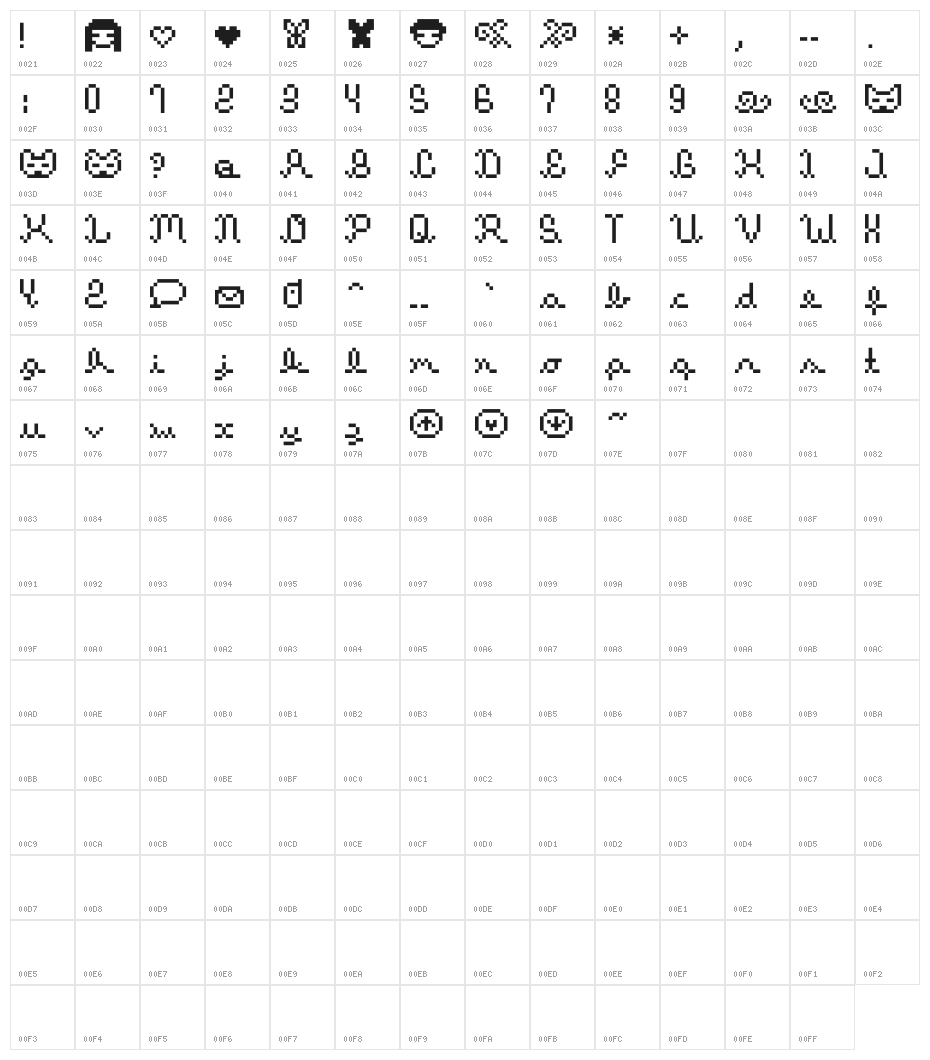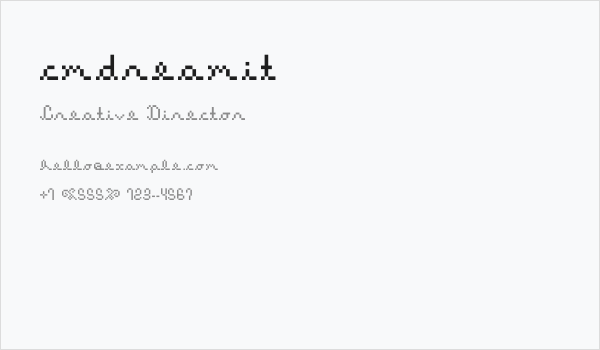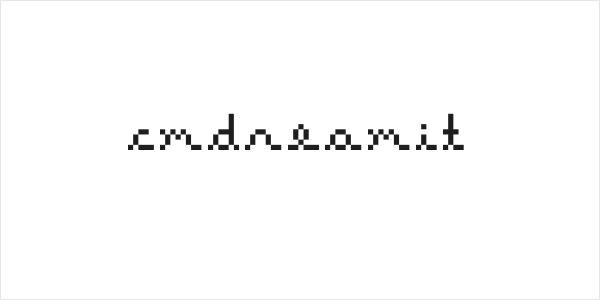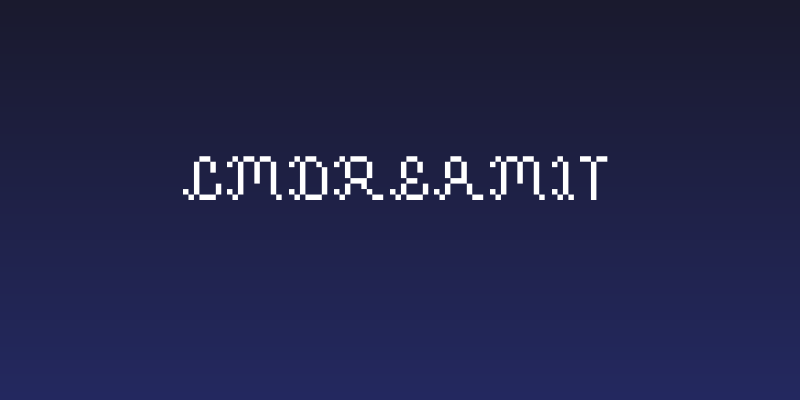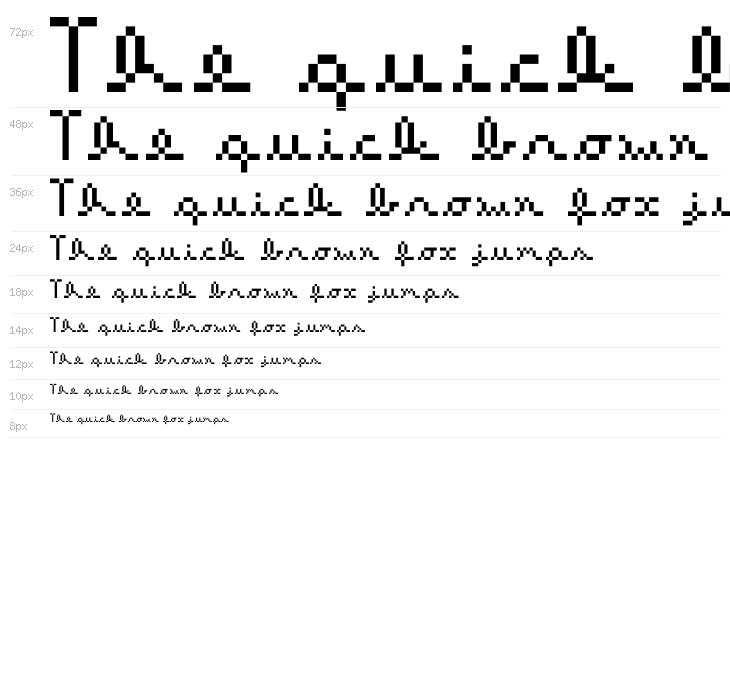
cmdreamit Font
cmdreamit Description
This font features a pixelated, retro style reminiscent of early digital displays and video games. The uppercase letters are bold and blocky, while the lowercase letters maintain a consistent pixelated form, offering a playful yet structured appearance. Numbers are similarly bold, ensuring clarity and impact. Special characters are creatively designed, adding a unique flair to the overall aesthetic. The font's pixelated nature gives it a nostalgic feel, perfect for projects aiming to evoke a sense of vintage digital charm.
| Use Case | Logos, Headlines, Digital Art |
| Proposed Projects | Ideal for video game design, retro-themed posters, digital art projects, and nostalgic branding. |